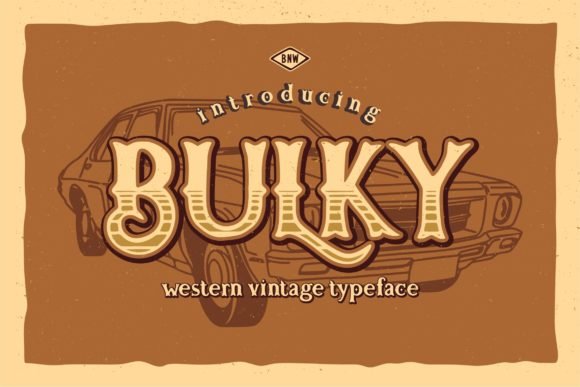
The Perfect Companion for Your Creative Rodeo: Bulky Font
This is where Bulky Font comes in – a western and vintage-looking slab serif font that’s as rugged as a cowboy’s boots and as unique as a handcrafted lasso. Inspired by the cowboy era, this font is perfect for adding a touch of rustic charm to your designs, from homeware to book covers.
- Unique Characteristic: Bulky Font features a distinctive, distressed texture that adds a vintage feel to designs.
Bulky Font Review
At first glance, Bulky Font seems like a game-changer for designers looking to add some extra flair to their projects. Here’s my honest review of this font.
- ✨ Unique and bold aesthetic: Bulky Font certainly stands out from the crowd, making it perfect for designers who want to create eye-catching headlines and titles.
- ✨ High legibility: Despite its bold appearance, the font is surprisingly easy to read, even at smaller font sizes.
- ✨ Wide range of styles: Bulky Font comes in a variety of styles, from casual to formal, making it versatile for different design projects.
- ⚠️ Limited support: Unfortunately, Bulky Font doesn’t have excellent support for non-English characters, which might be a problem for designers working on international projects.
- ⚠️ Limited customization options: While the font has some built-in styles, designers might find it restrictive in terms of customization options, especially for more complex design projects.
Bulky Font is a solid choice for designers who want to add some extra personality to their projects. Its unique aesthetic and high legibility make it a great option for headlines and titles. However, its limitations in terms of support and customization might be a concern for designers working on more complex projects.
Bulky Font is ideal for creating eye-catching headings, titles, or emphasis in your designs. Use it to add a touch of drama or create visual hierarchy in your content.
Some common use cases include:
- Headings and titles in brochures, posters, or flyers.
- Emphasis in presentations, reports, or articles.
- Creating a bold and attention-grabbing visual style in branding or marketing materials.